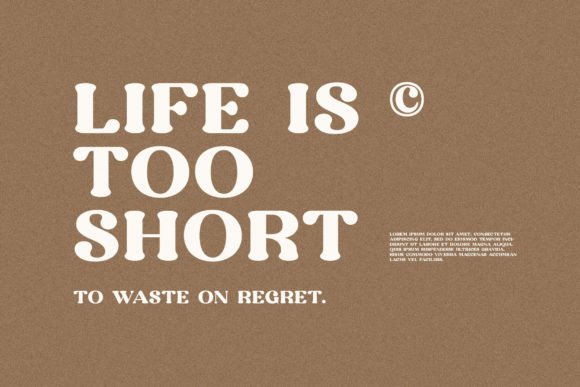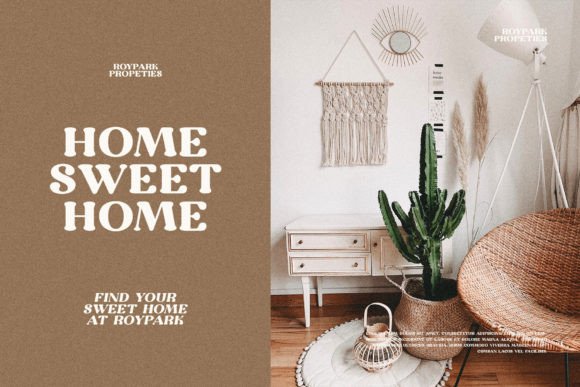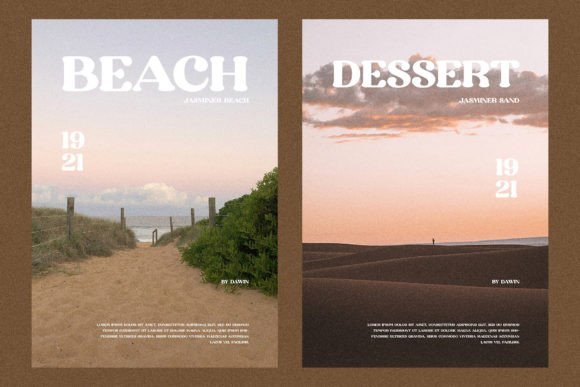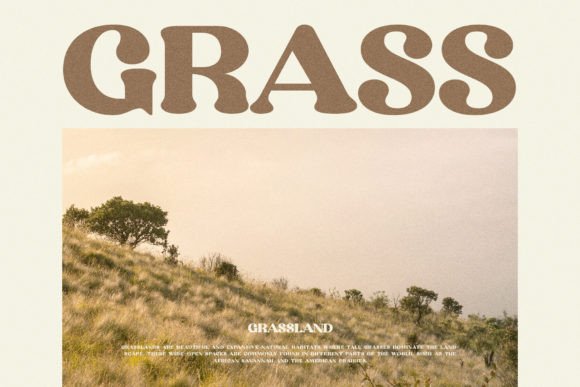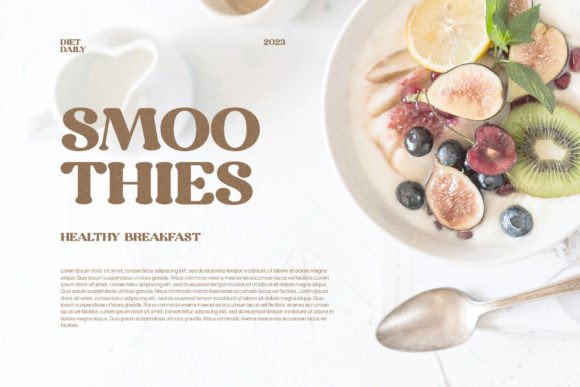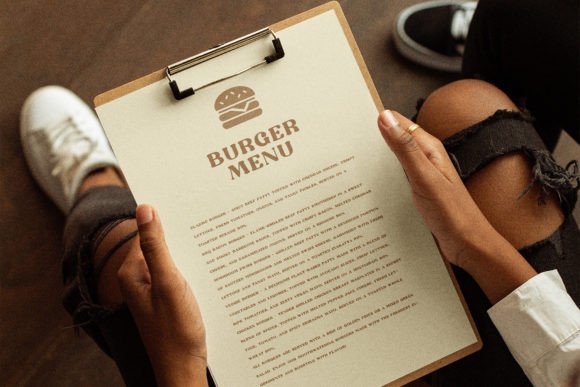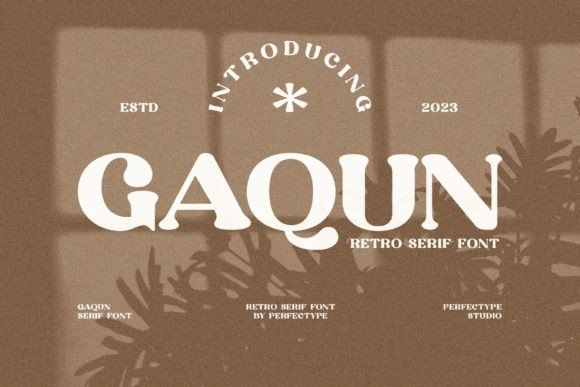
Introducing Gaqun Font: Elevate Your Designs with Elegance and Sophistication
In the world of typography, a well-crafted font can make all the difference in elevating your designs to the next level. Gaqun Font is a stunning example of an elegant serif typeface that combines classic sophistication with modern style. This versatile font is perfect for a wide range of design projects, from branding and logos to wedding designs, social media posts, and more.
The Characteristics of Gaqun Font
Gaqun Font boasts a unique blend of traditional and contemporary elements, making it an excellent choice for designers seeking to add a touch of refinement to their work. Its serif design provides a sense of classic elegance, while its modern style ensures that it remains fresh and relevant. The font’s high level of readability makes it perfect for use in various design applications, including:
- Branding projects: Create a lasting impression with Gaqun Font’s sophisticated and elegant style.
- Logos: Make your logo stand out with a font that exudes class and modernity.
- Wedding designs: Add a touch of romance and sophistication to your wedding-related designs.
- Social media posts: Elevate your social media presence with Gaqun Font’s clean and readable style.
- Advertisements: Grab attention with a font that is both elegant and attention-grabbing.
- Product packaging: Make your product stand out on store shelves with Gaqun Font’s unique style.
- Product designs: Add a touch of sophistication to your product designs.
- Labels: Create labels that are both informative and visually appealing.
- Photography: Use Gaqun Font as a watermark or overlay to add a touch of elegance to your photos.
- Invitations: Create stunning invitations that set the tone for any event.
- Stationery: Elevate your stationery designs with Gaqun Font’s classic and modern style.
Why Choose Gaqun Font?
With so many fonts available, why choose Gaqun Font? Here are just a few reasons why designers and crafters love this elegant serif typeface:
- Versatility: Gaqun Font is suitable for a wide range of design projects, from digital to print.
- Readability: The font’s high level of readability makes it perfect for use in various design applications.
- Elegance: Gaqun Font’s classic and modern style adds a touch of sophistication to any design.
- Uniqueness: The font’s unique blend of traditional and contemporary elements sets it apart from other serif typefaces.
Tips for Using Gaqun Font
To get the most out of Gaqun Font, here are a few tips to keep in mind:
- Experiment with font sizes: Gaqun Font looks great in a variety of font sizes, from large headings to smaller body text.
- Pair with other fonts: Try pairing Gaqun Font with other fonts to create a unique and visually appealing design.
- Use in combination with images: Gaqun Font looks great when used in combination with images, graphics, and other design elements.